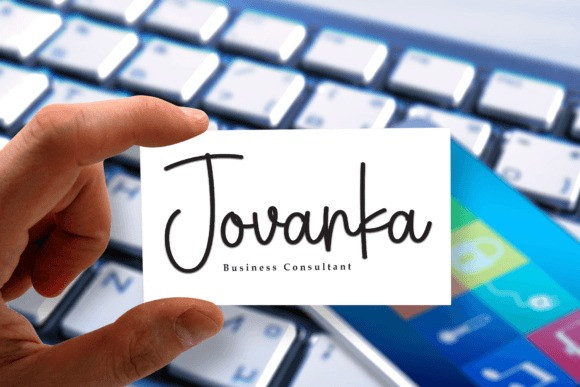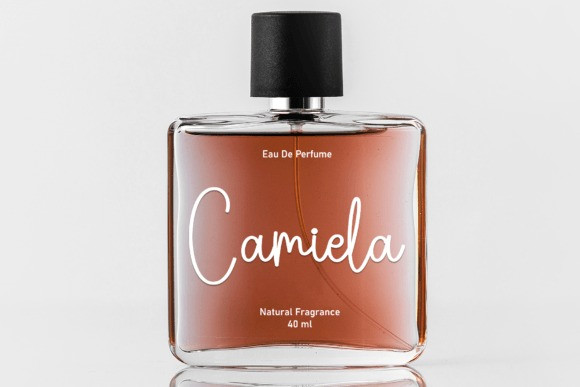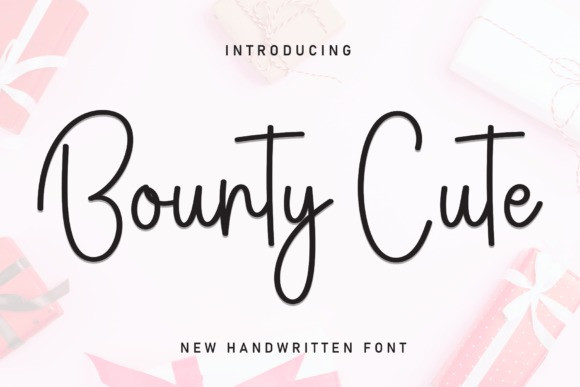
Bounty Cute Font
Bounty Cute Font is a sweet and friendly handwritten font. Its natural and unique style makes it incredibly fitting to a large pool of designs. The only limit is your imagination!